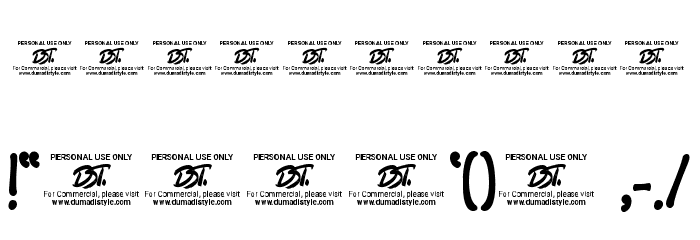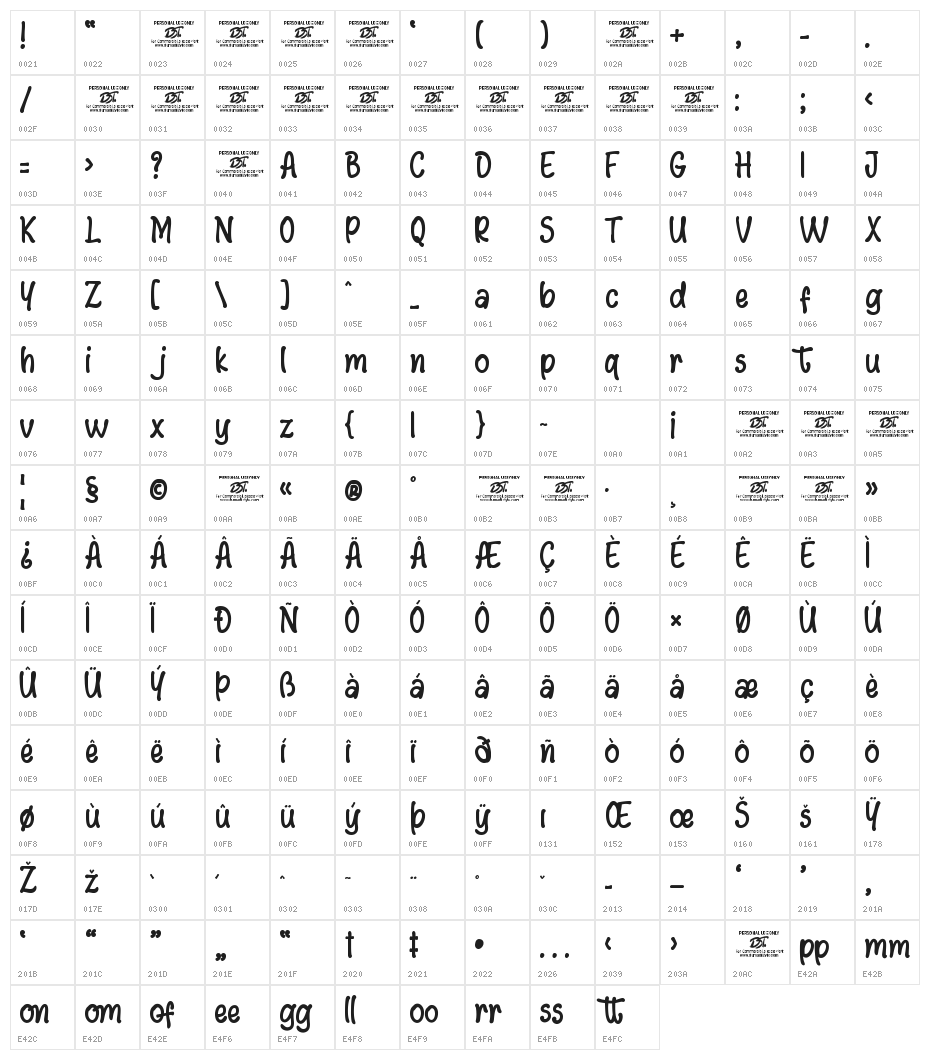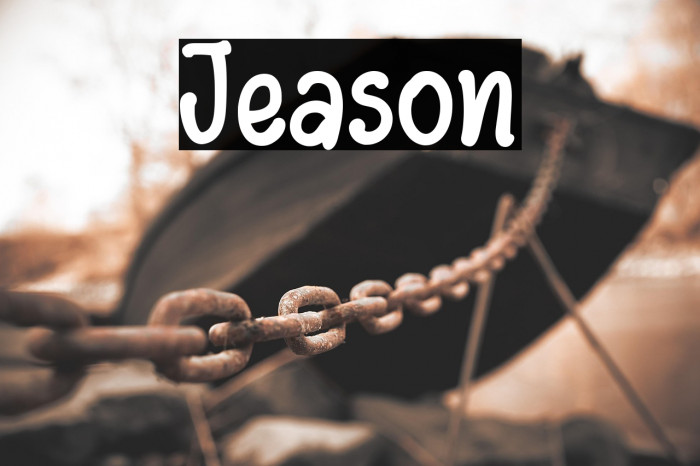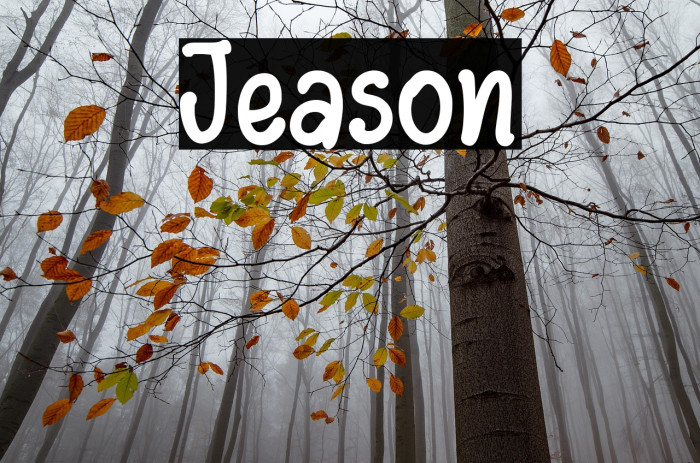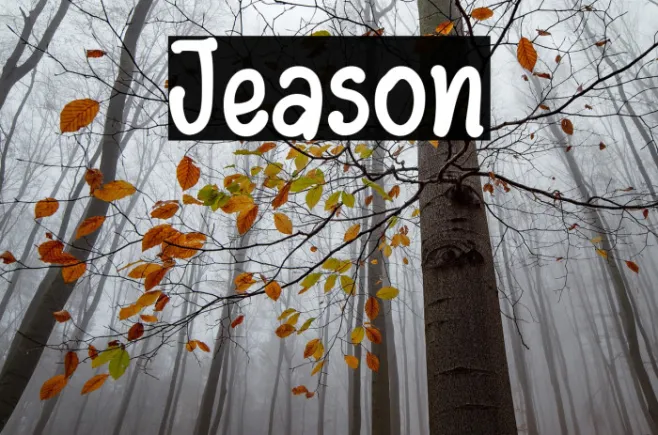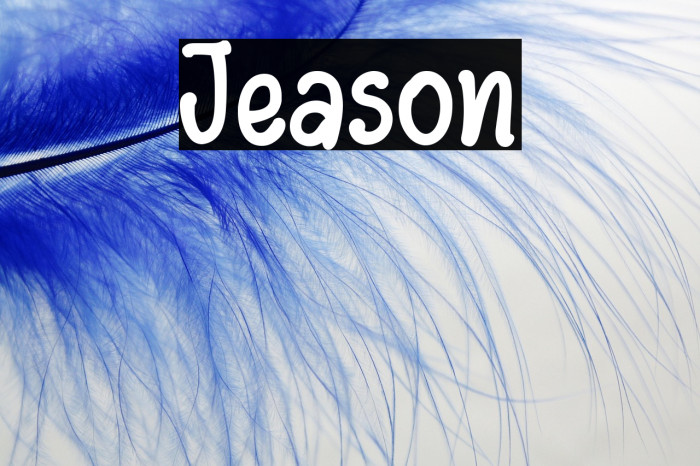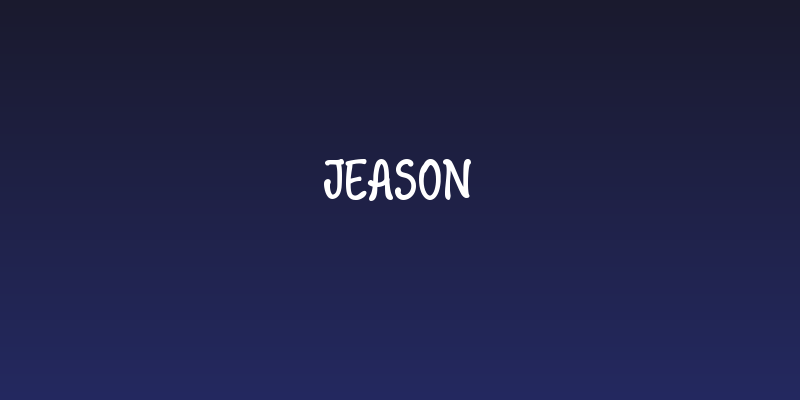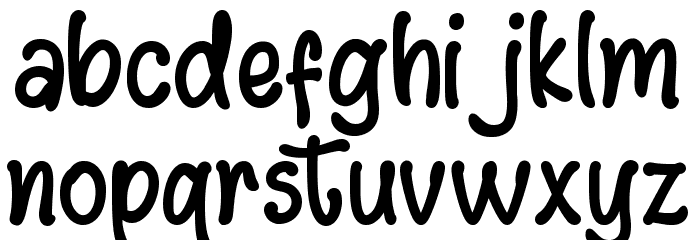
Jeason Font
Jeason Description
This font features a playful and casual handwritten style, characterized by its bold and rounded letterforms. The strokes are consistent in thickness, giving it a uniform appearance. The uppercase letters are slightly taller than the lowercase, maintaining a friendly and approachable look. The overall design is smooth and flowing, with a slight slant that adds to its informal charm. The special characters are designed to match the playful nature of the alphabet, making it suitable for creative and fun projects.
| Proposed Projects | Ideal for children's books, greeting cards, playful branding, and casual invitations. |